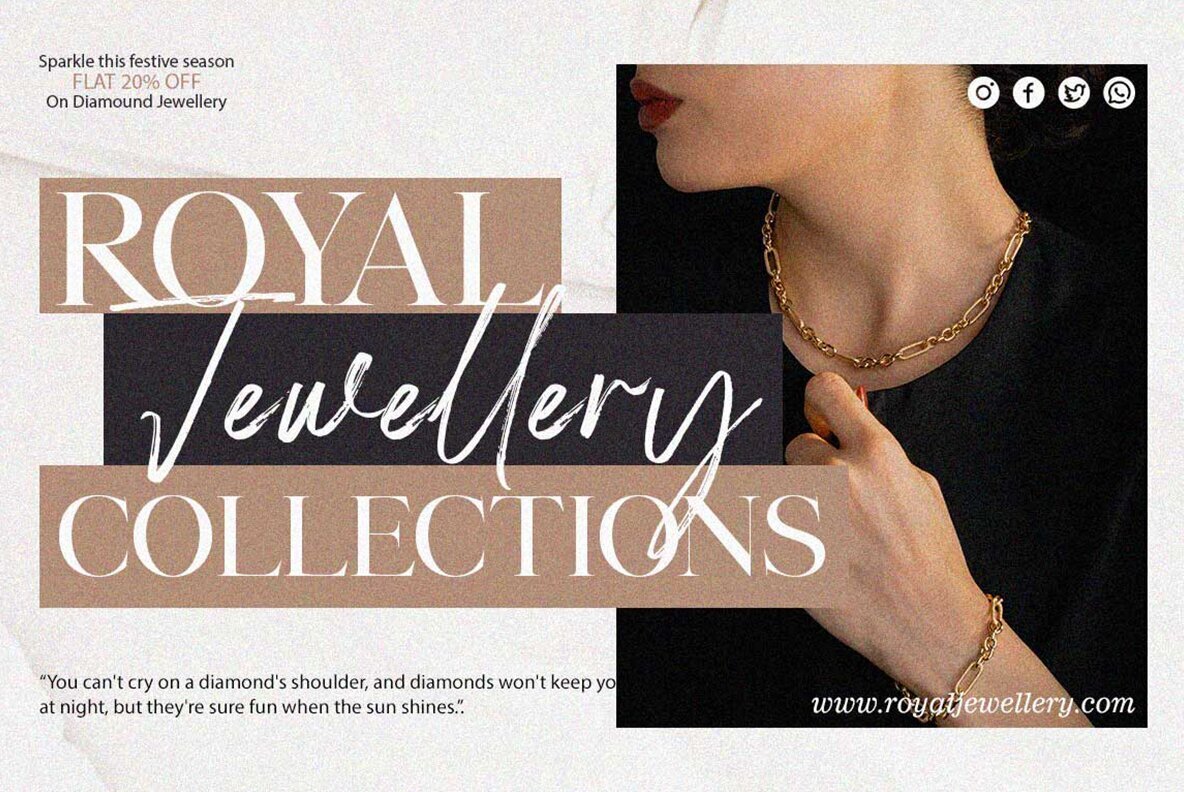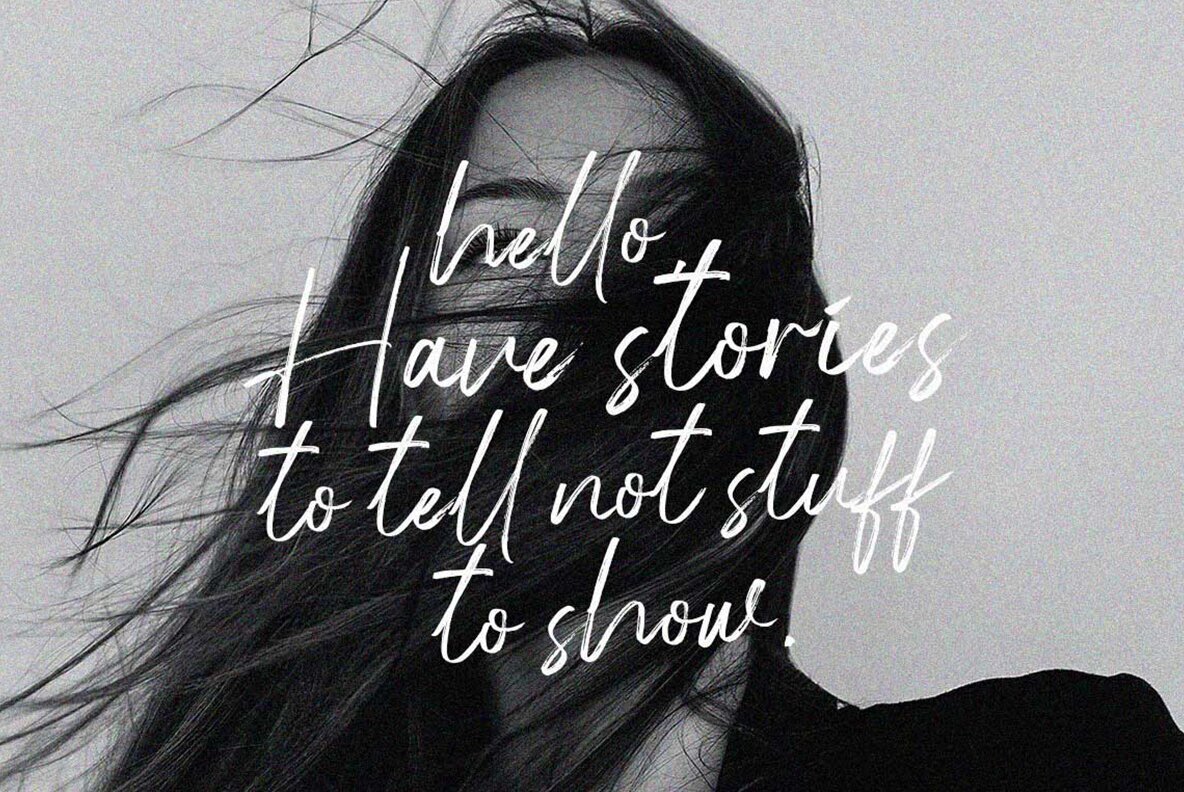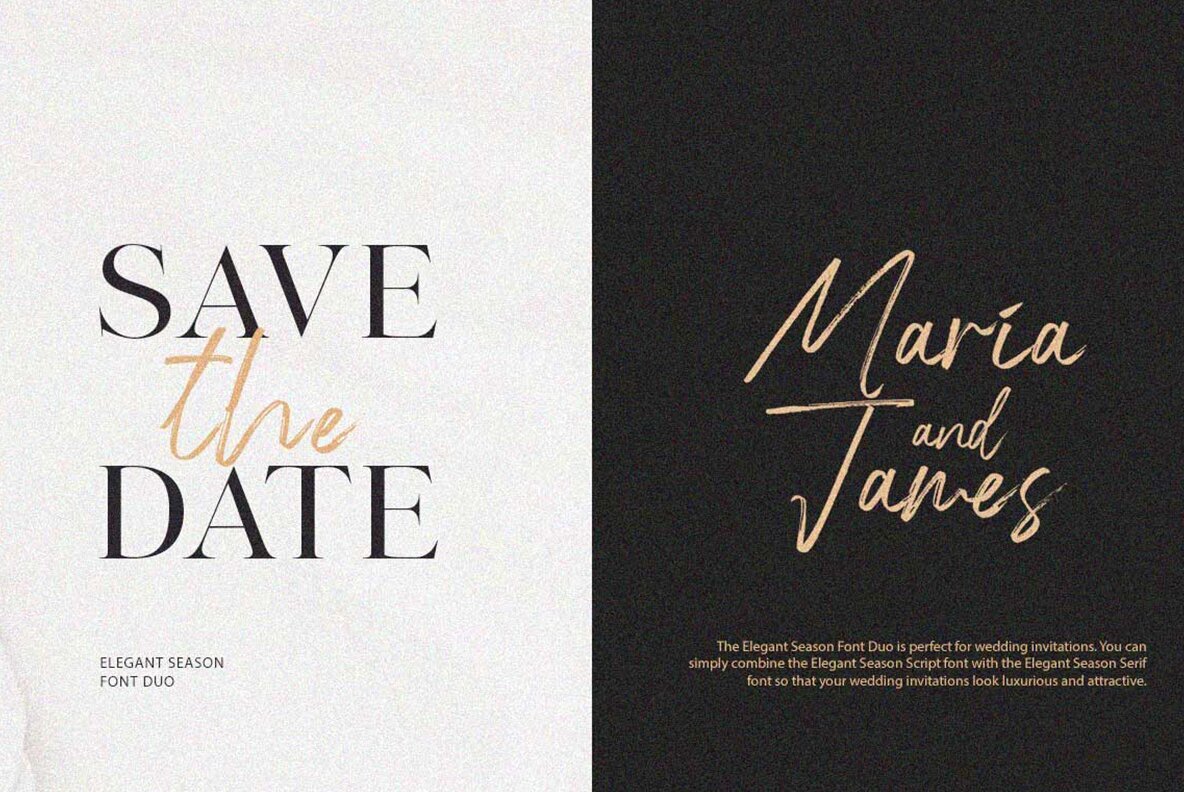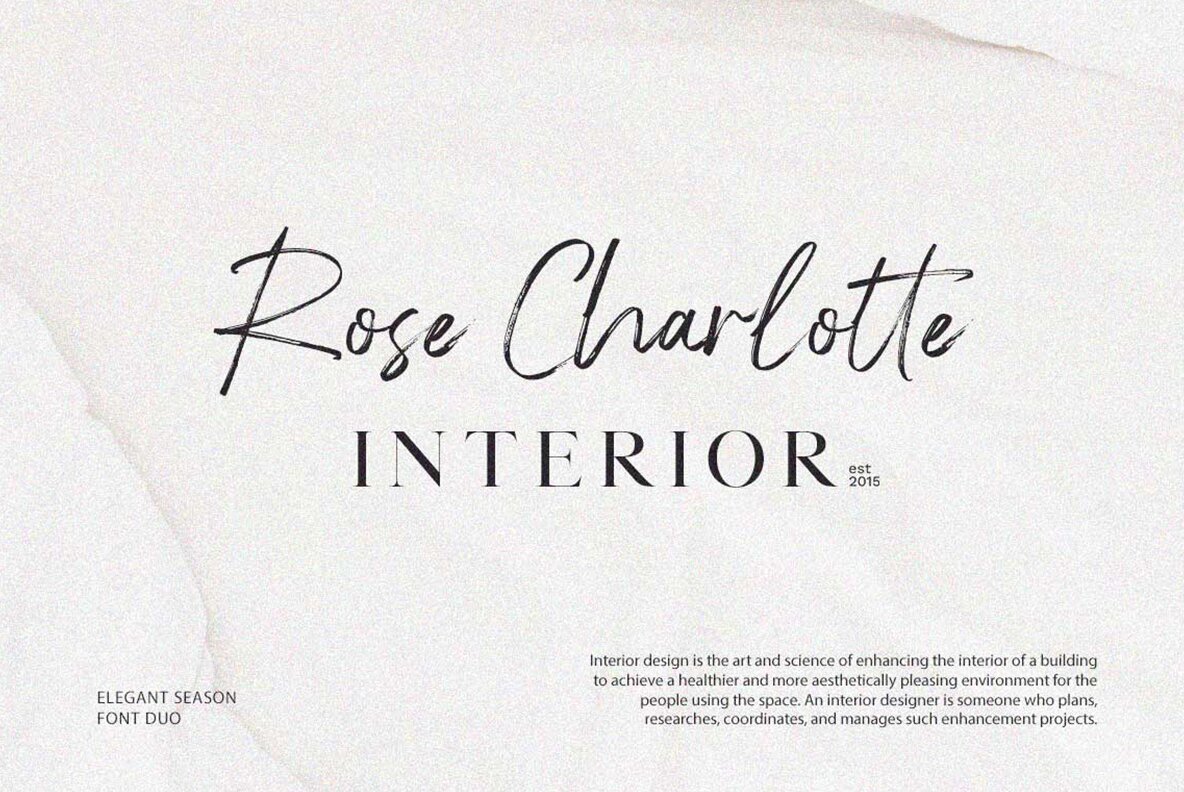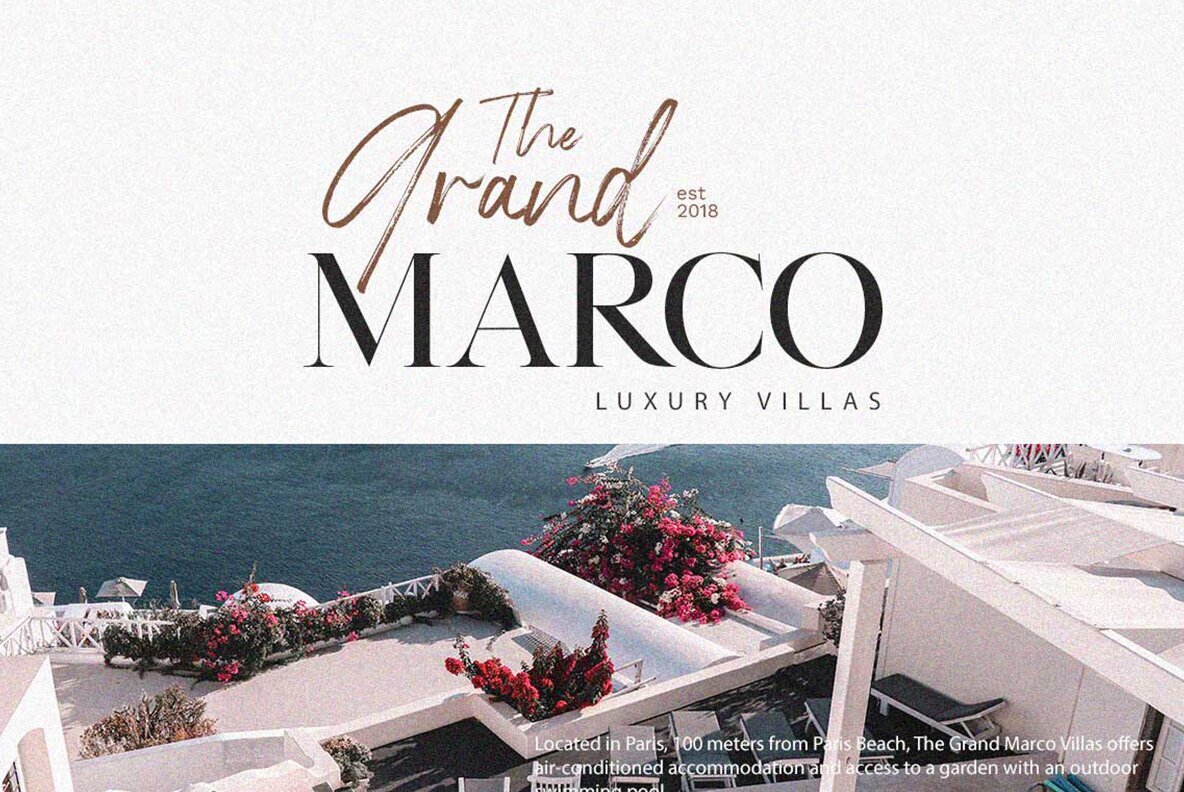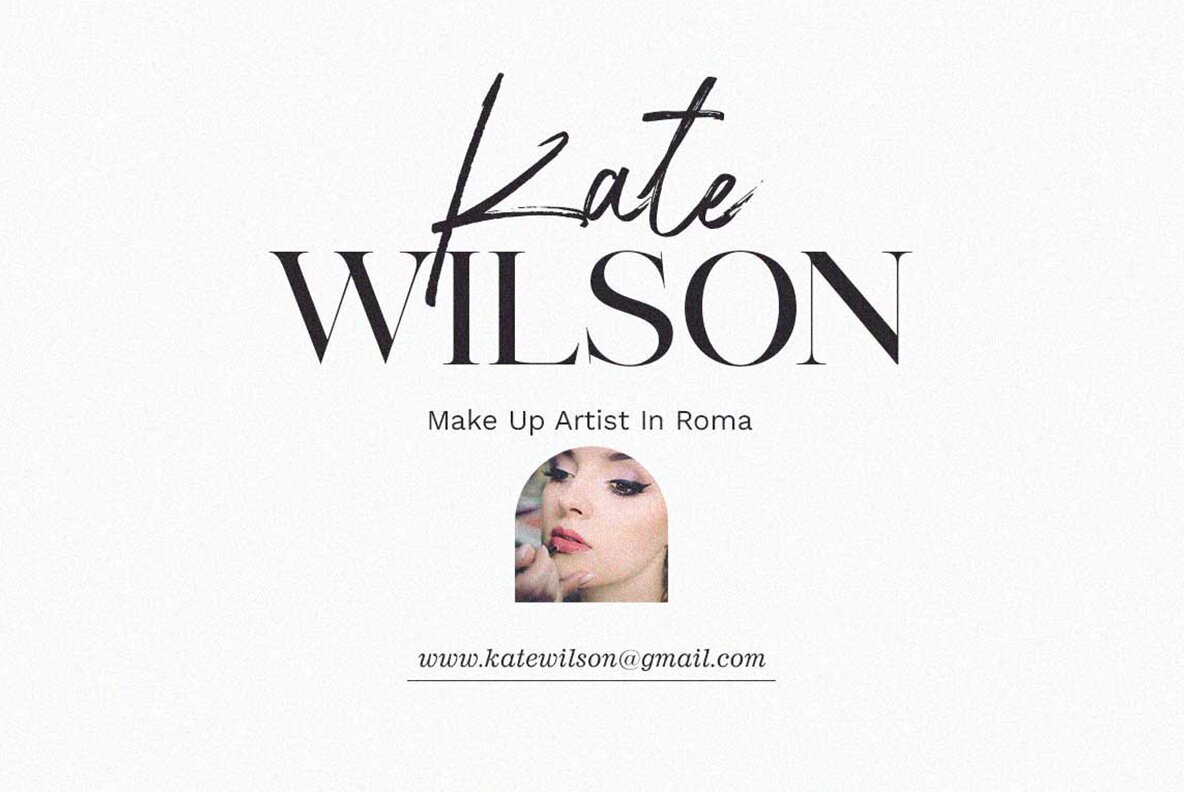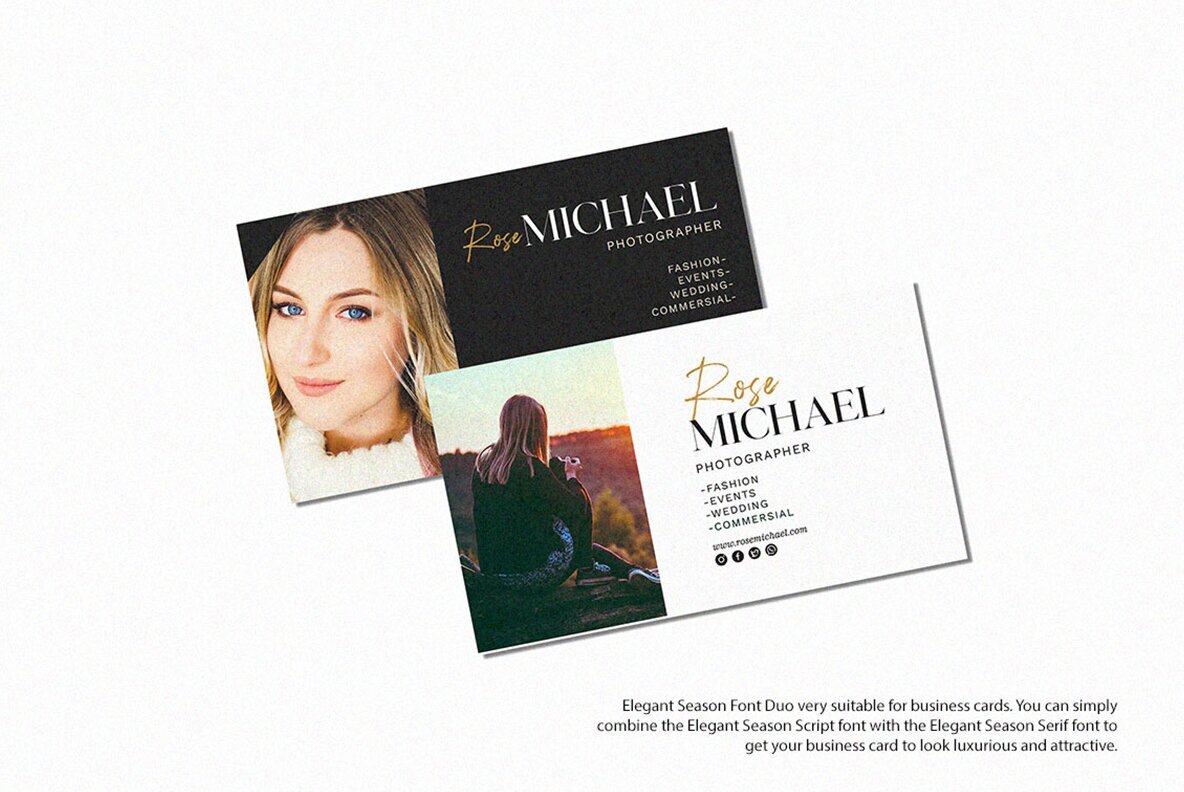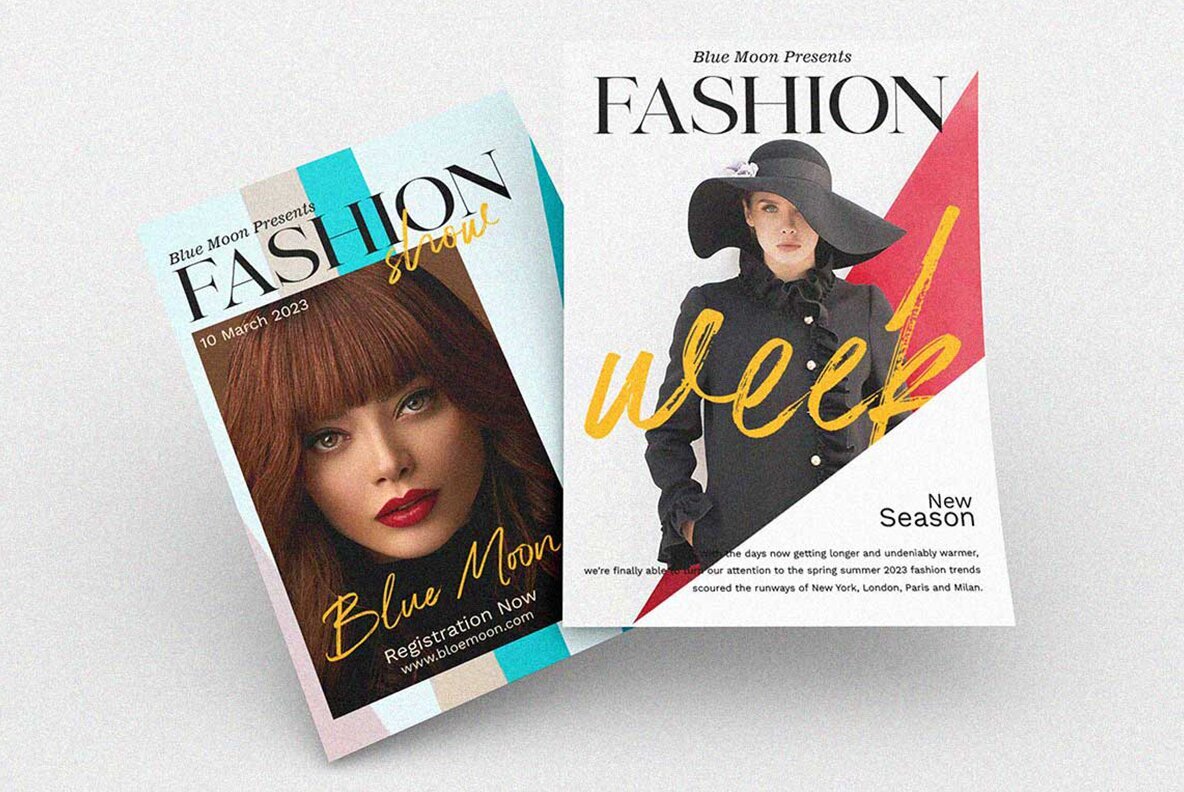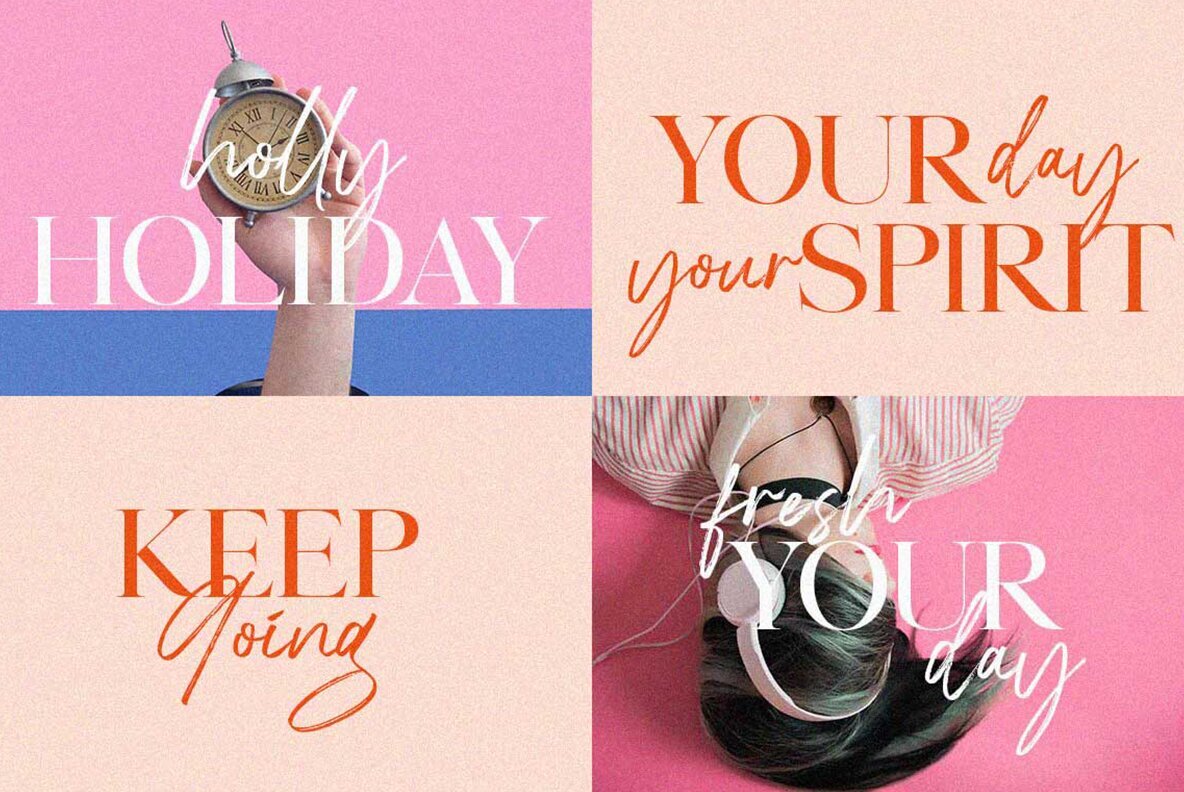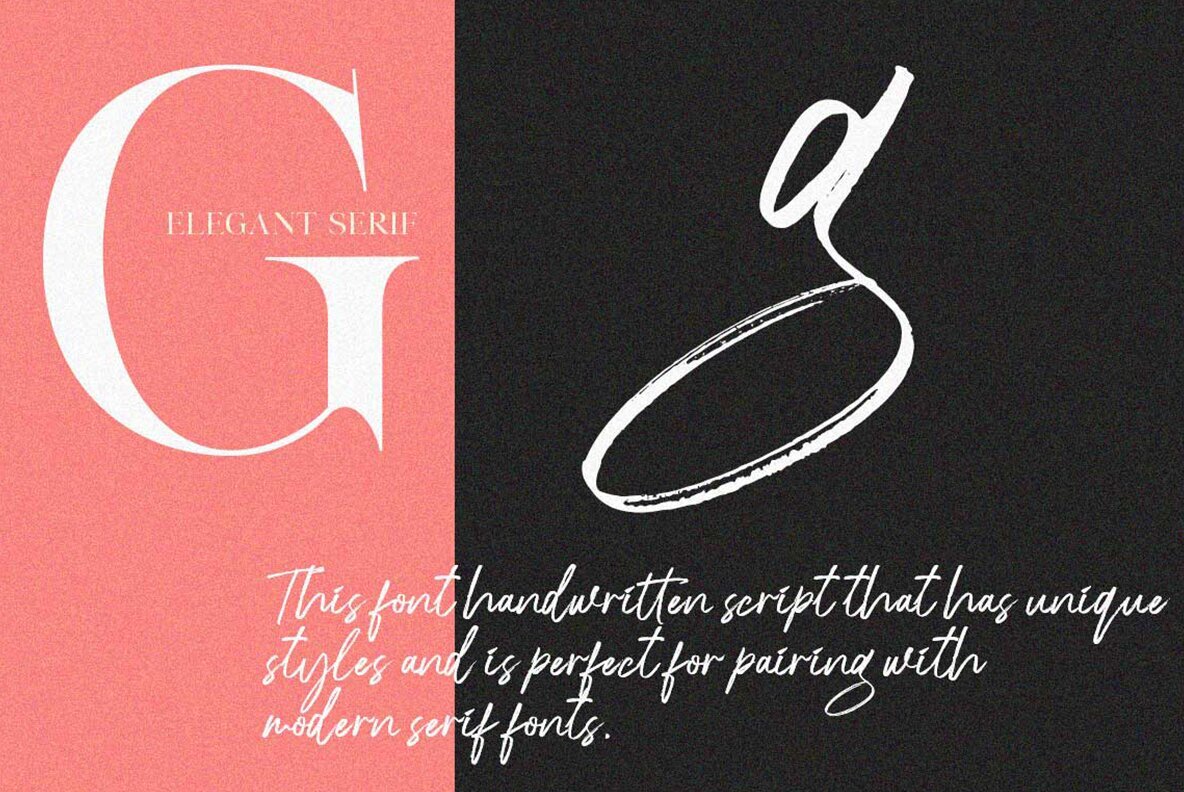
Elegant Seasons Font
The Elegant Seasons Font Duo is a sophisticated combination designed to enrich your creative projects in 2023. Featuring a luxurious serif font paired with an effortlessly natural handwritten script, it offers a perfect balance of elegance and minimalism. This font duo is ideal for modern logos, websites, social media quotes, wedding stationery, and more, providing a polished, eye-catching aesthetic that enhances any design.
The font update includes lowercase letters for the sans serif fonts and a cleaner version of the script, ensuring versatility and clarity in your work. Whether you're designing a modern website or crafting wedding invitations, the Elegant Seasons Font Duo offers both luxury and simplicity to your projects.